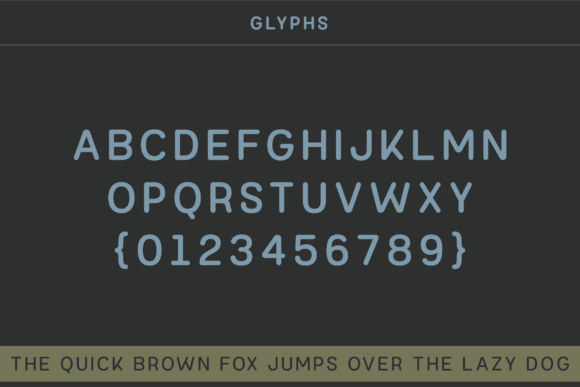
The Perfect Font for Your Creative Vision
Have you ever stared at a blank page, trying to come up with the perfect font to match your brand’s personality? You’ve scrolled through countless options, but nothing seems to capture the essence of your creative vision. That’s where the Blacklest Rounded Font comes in – a modern all-caps sans serif font family designed to bring clarity, warmth, and bold personality to your projects.
With its soft-rounded edges and sleek, geometric construction, the Blacklest Rounded Font is both highly legible and aesthetically balanced. This versatile font family adapts beautifully to various design needs, from logos and packaging to social media visuals and high-impact headlines. Whether you’re a designer, crafter, or brand creator, the Blacklest Rounded Font is a valuable addition to your toolkit, helping you achieve a clean yet friendly visual identity that truly represents your brand.
Key Features of Blackletra Rounded Font
- Unique Characteristic: Blackletra Rounded is a rounded sans-serif font with a modern and elegant design, making it ideal for digital and print media.
- Font Weight: Offers 6 font weights, from Light to Black, allowing for a wide range of design possibilities.
Blacklest Rounded Font Review
I’ve had the chance to work with Blacklest Rounded Font, and I must say it’s been a decent experience. Here are my thoughts:
- Legibility: The rounded design makes it easy on the eyes, even for longer blocks of text.
- Flexibility: Blacklest Rounded Font is suitable for a wide range of projects, from body text to headings.
- Readability at small sizes: While the rounded design is aesthetically pleasing, it can become difficult to read at very small font sizes.
- Lack of bold weight options: The font family is limited to regular and italic weights, which can make it challenging to create contrast in your designs.
Overall, Blacklest Rounded Font is a solid choice for projects that require a clean and approachable aesthetic. However, it may not be the best fit for designs that need to be read at extremely small sizes or require a lot of bold emphasis.
Use Blacklest Rounded Font for creative projects that require a modern and sleek look.
Pair it with bold colors and geometric shapes to create a striking visual effect.
Experiment with different font sizes and styles to achieve the desired level of emphasis.
Blacklest Rounded Font is suitable for:
Marketing materials (brochures, flyers, posters)
Web design and development
Infographics and data visualizations
Alternatives to Blacklest Rounded Font
Lato is a modern sans-serif font that is clean and elegant. It is suitable for use in digital products, branding, and publishing. It is more geometric in shape compared to Blacklest Rounded Font, giving it a more modern feel.
When to use: Lato is ideal for digital products, branding, and publishing where a clean and modern look is desired.
Comparison: Lato has a more geometric shape compared to Blacklest Rounded Font, which has a more rounded and soft look. Lato is more suitable for modern designs, while Blacklest Rounded Font is more suitable for vintage or retro designs.
Montserrat is a geometric sans-serif font that is designed for urban environments. It is suitable for use in digital products, branding, and publishing. It is more geometric in shape compared to Blacklest Rounded Font, giving it a more modern feel.
When to use: Montserrat is ideal for digital products, branding, and publishing where a modern and urban look is desired.